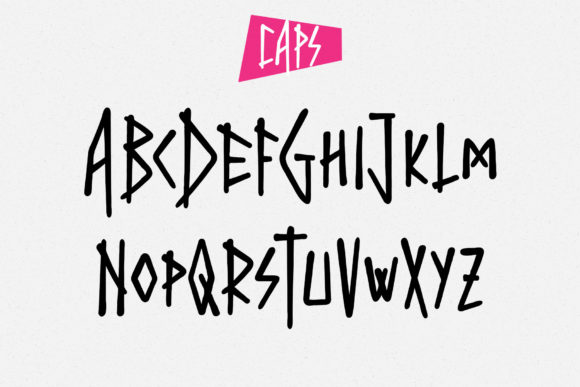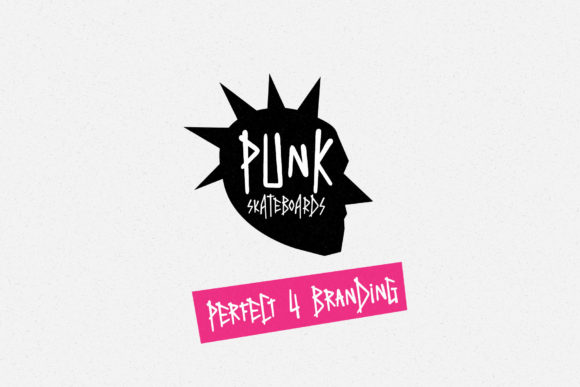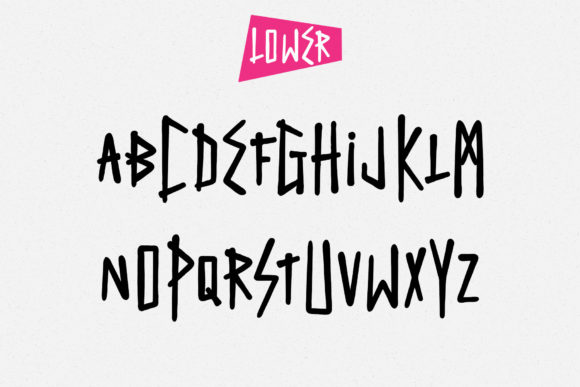
Introduction to Misfit Font
You’ve stared at a blank canvas, trying to bring your creative project to life, but nothing seems to be working. The words, the colors, the design – everything feels like it’s just missing that special something. Then, like a bolt of lightning, inspiration strikes. You start experimenting with different fonts, and suddenly, the perfect piece of the puzzle falls into place. For many designers, this moment is the key to unlocking a truly unique and captivating design.
One font that can help you achieve this moment of creative clarity is the Misfit Font. This quirky and scary styled display font is perfect for designs that require a touch of edginess and personality. Whether you’re creating t-shirts, sportswear, logos, or advertisements, the Misfit Font is sure to make your design stand out from the crowd.
Misfit Font: Key Features
- Unique, hand-drawn design style with a creative twist, perfect for a wide range of creative projects.
- High-quality design with a transparent background, allowing for easy customization and versatility in design projects.
- Includes a range of font sizes and resolutions, from 72 dpi to 300 dpi, to accommodate various design needs.
- Designed to be highly legible, even at small font sizes, making it an ideal choice for digital and print design projects.
- Comes with a comprehensive character set, including uppercase and lowercase letters, numbers, and punctuation marks.
Honest Review: Misfit Font
I recently came across the Misfit Font, a unique design resource that caught my attention. The first thing I noticed was its high quality, making it a great addition to any creative project. The font itself is quite versatile, offering a range of styles that can be used for various purposes.
What works well
- ✨ High-quality design that looks great on both light and dark backgrounds.
- ✨ Offers a transparent background, making it easy to overlay on images or use with other design elements.
However, I did encounter a few limitations with the Misfit Font.
- ⚠️ Limited character set, which might not be suitable for longer texts or formal documents.
- ⚠️ Some letters may not be compatible with certain font sizes or styles, leading to distortion.
Overall, the Misfit Font is a great addition to any designer’s toolkit, especially for creative projects that require a unique and eye-catching look. While it has its limitations, its high quality and versatility make it a worthwhile resource to explore.
Tips for Getting the Most Out of Misfit Font
For a high-quality design, use Misfit Font on a transparent background to create a unique and eye-catching effect. This font is perfect for a creative project where you want to stand out from the crowd.
Misfit Font is a versatile design resource that can be used in a variety of applications, including posters, social media graphics, and marketing materials. Its unique design makes it perfect for use in creative projects where you want to add a touch of personality and style.
Yes, the Misfit Font has a transparent background, making it ideal for use with images and other design elements that require a transparent or semi-transparent background. This feature allows designers to create complex and visually appealing designs with ease.